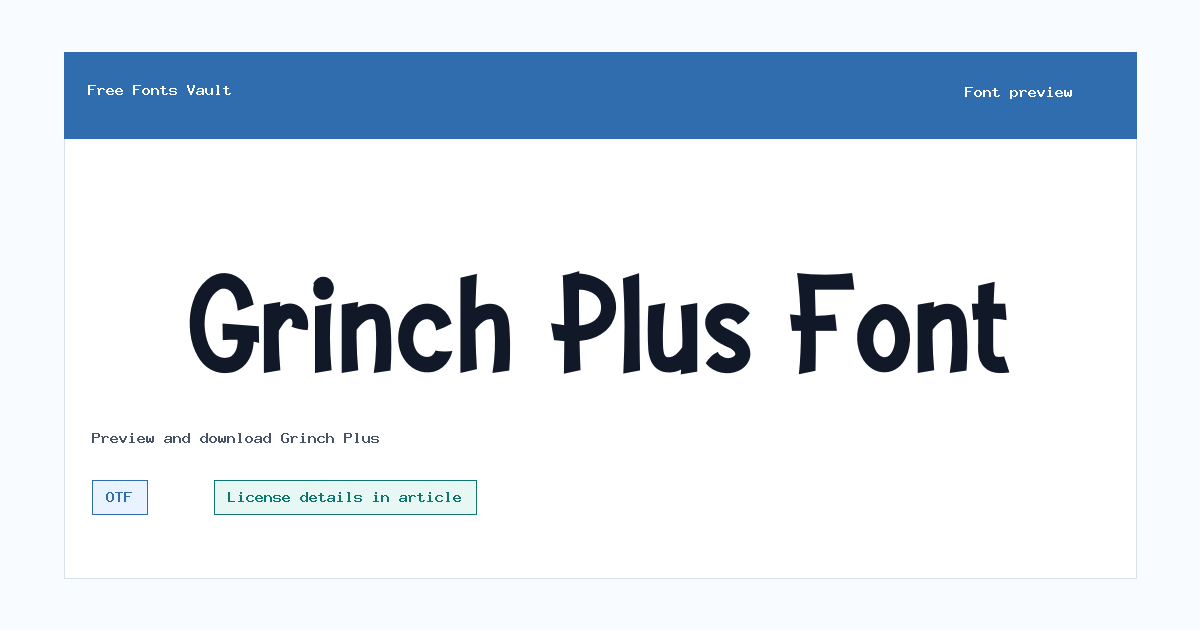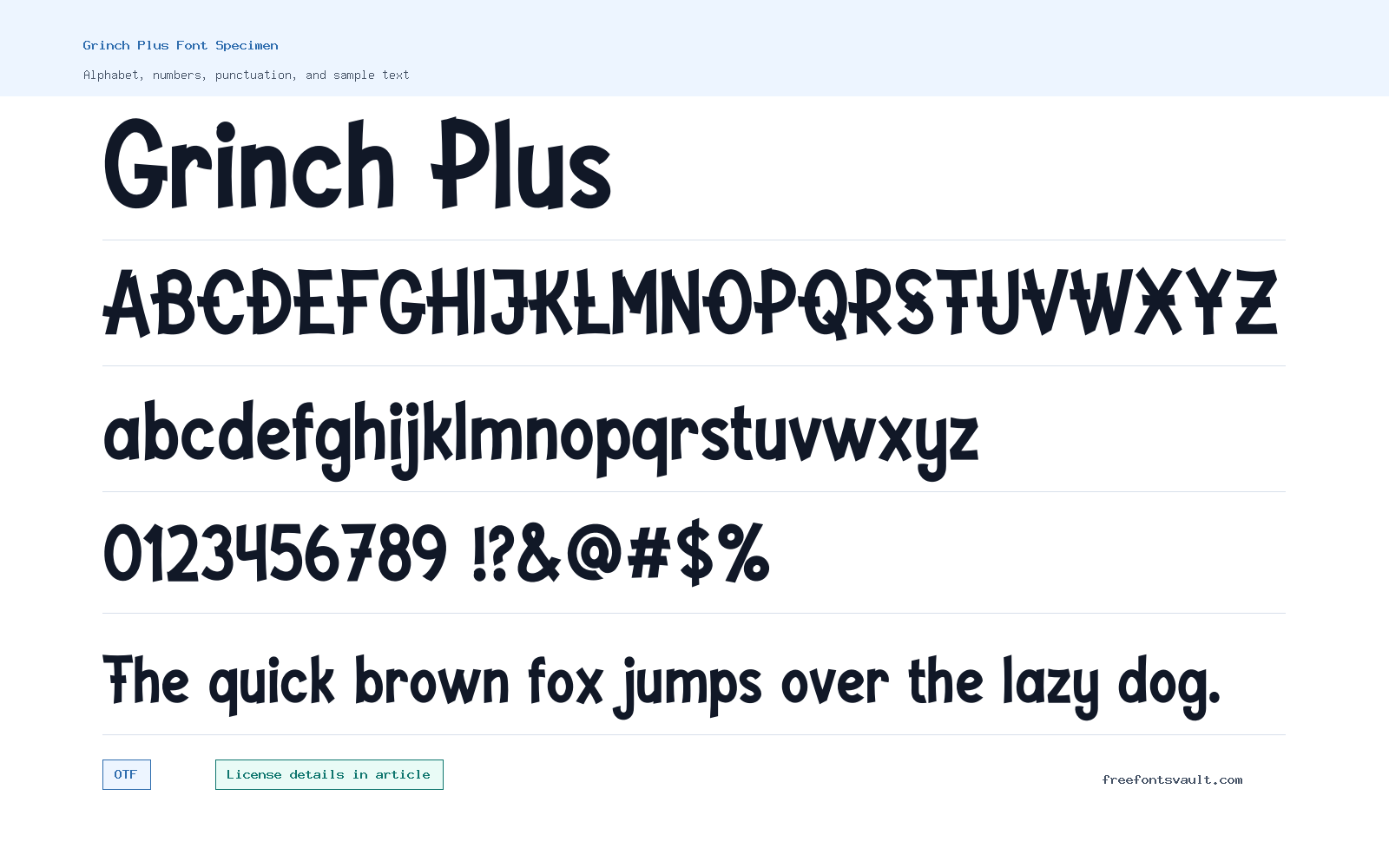
Grinch Plus
- Designer Abu Hasnat
- Foundry Obig Digital
Grinch Plus font.
Grinch Plus is a playful display font made for short, attention-grabbing text. Its name may remind readers of a familiar holiday character, but the font should be treated as an independent typeface unless the rights holder states otherwise.
About Grinch Plus Font
Grinch Plus works best when you need a decorative title rather than a long reading font. The regular style has the kind of personality that suits posters, headers, playful graphics, holiday-themed layouts, social posts, and other designs where the words need to feel expressive at first glance. Because this family is listed with one regular OTF file, it is simple to test: type your headline, check the spacing, and see how the shapes behave at the size you plan to use. Fonts with a strong display feel can look fun in a few words but may become tiring in full paragraphs, so keep the main text in a cleaner companion font.
Use the preview box to test real words, not just a sample alphabet. Try names, short phrases, numbers, and punctuation that will appear in your design. If you plan to use Grinch Plus for a logo, merchandise, a book cover, a video thumbnail, or a client project, pay extra attention to the license note because no clear license is listed. For a balanced layout, pair it with a plain sans serif or a readable serif, and let Grinch Plus handle the title or accent line. This helps the decorative style stand out without making the whole design hard to read.
- Display-focused personality suited to short titles, playful graphics, and decorative lettering.
- Holiday-style headings, party flyers, greeting graphics, thumbnails, and themed social media posts.
- Short display text where a playful font can carry the mood while another font handles body copy.
Grinch Plus is credited to Abu Hasnat, with Obig Digital listed as the foundry.
What kind of projects fit Grinch Plus?
It fits short display uses such as posters, holiday graphics, party designs, social media images, thumbnails, and decorative headings.
Can I use Grinch Plus for body text?
It is better for short titles and accent words. For paragraphs, pair it with a simpler text font so the page stays readable.
Is Grinch Plus an official character or movie font?
No official association is stated in the font facts. Treat it as an independent font name and avoid implying endorsement or connection in your design.